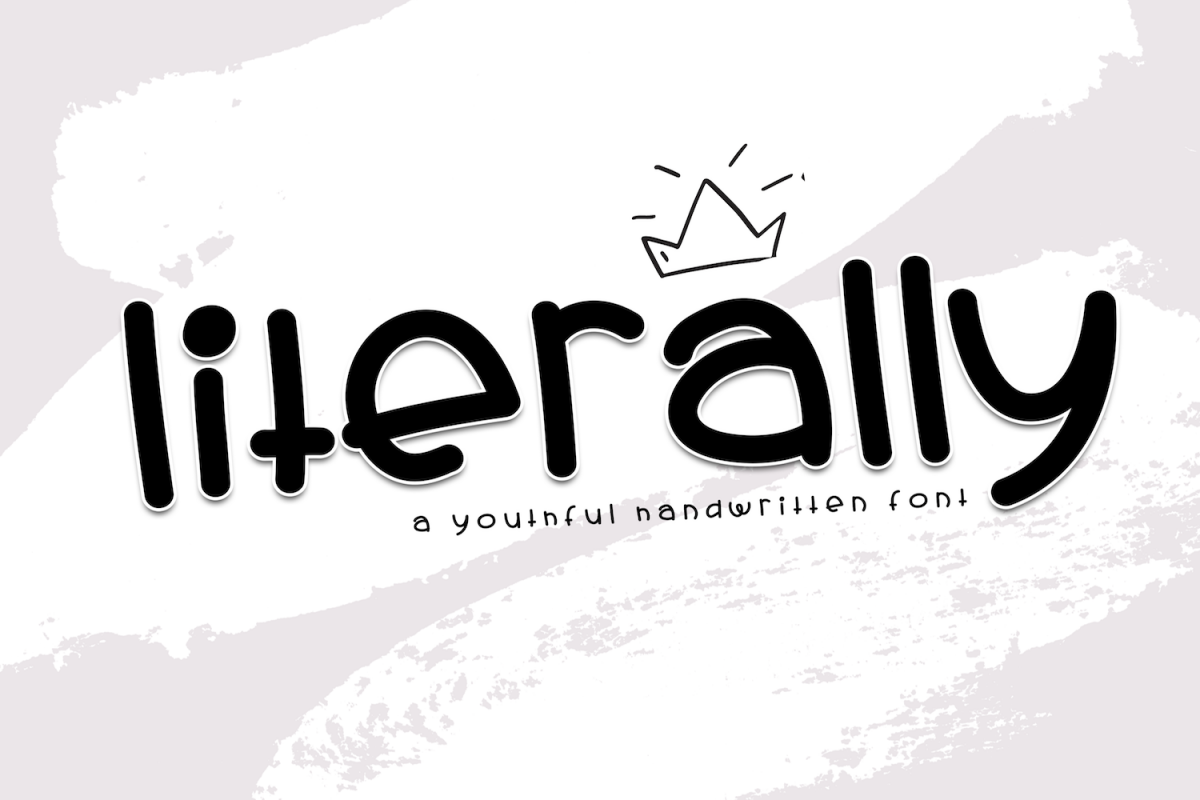
Literally - A Youthful Handwritten Font
Literally
Literally is a youthful handwritten font.
This font is perfect for quotes, headings, blogs, logos, invitations and more!
*The lowercase and capital letters are the same for this font*
This font does include accent characters.